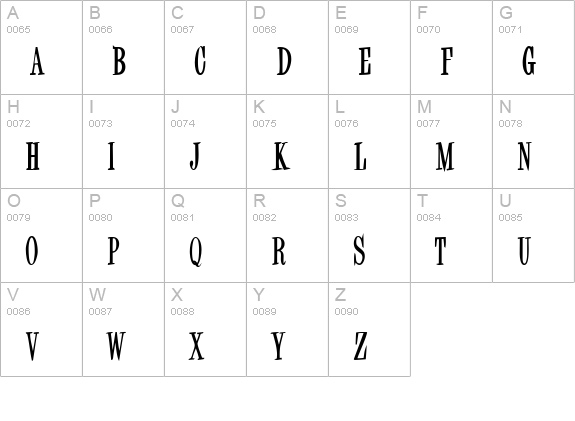
SecretarialPool Font Details
Introducing SecretarialPool font, a captivating and versatile typeface that will add a touch of elegance to any design project. With its sleek and refined letterforms, SecretarialPool font is perfect for creating sophisticated logos, branding materials, invitations, and more. This exquisite font offers a harmonious balance between modernity and classic charm, making it suitable for a wide range of applications. Whether you're designing a high-end fashion magazine, a luxurious hotel brochure, or a prestigious corporate website, SecretarialPool font will effortlessly elevate your visual communication to new heights. What makes SecretarialPool font even more appealing is that it is freely available to download at FontsMarket.com. Yes, you read that right - this exceptional font can be yours without any cost! So, if you're looking to enhance your design projects without breaking the bank, SecretarialPool font is the perfect choice. With its extensive character set and multiple weights, SecretarialPool font provides endless possibilities for creative expression. From bold headlines to delicate body text, this font has the versatility to convey the desired tone and mood with utmost precision. In addition to its aesthetic appeal, SecretarialPool font is also highly legible, ensuring optimal readability across various mediums and sizes. Its meticulously crafted letterforms guarantee that your message will be conveyed clearly and effortlessly, captivating your audience from the first glance. So, why wait? Unlock the potential of your design projects with SecretarialPool font, freely available at FontsMarket.com. Download this remarkable font today and experience the seamless combination of sophistication, versatility, and affordability it offers. Elevate your designs and make a lasting impression with SecretarialPool font.